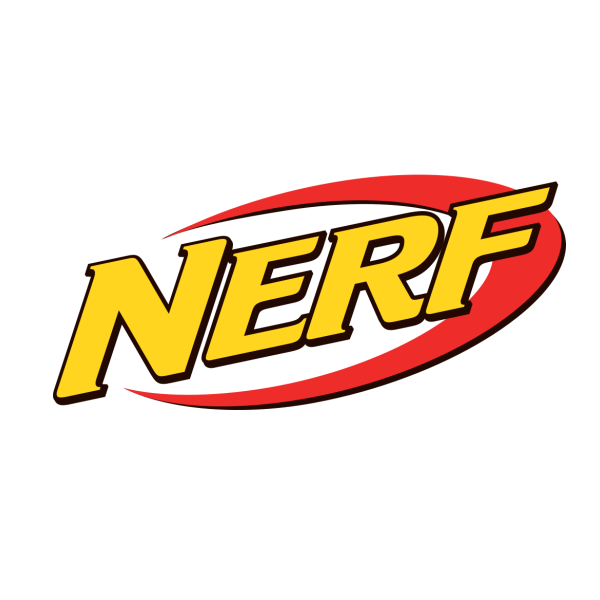
Nerf Font
EntertainmentNerf is a toy brand owned by Hasbro, best known for its foam dart guns or blasters. These toys offer safe and enjoyable play for all ages, making them a staple in family game nights and outdoor play.
The Nerf logo in use since 2004 features tilted text in a serif font, Crillee Italic, designed by Peter O’Donnell for Letraset. More information about the font can be found here.